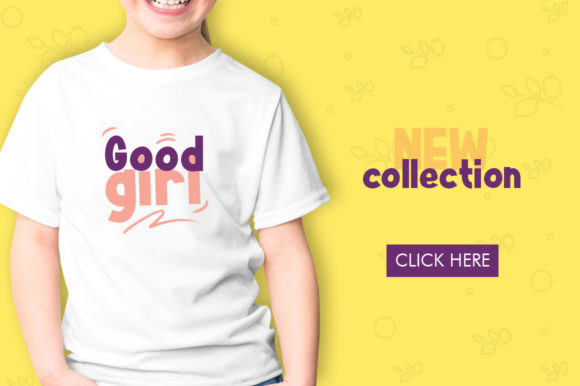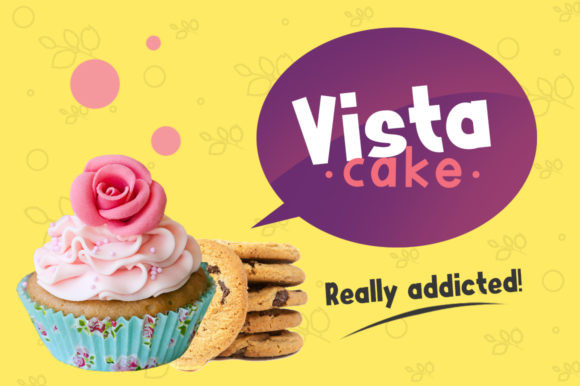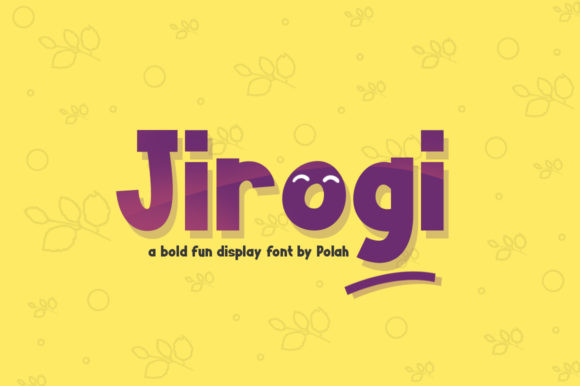
Jirogi Font
Jirogi is a fun and whimsical display font with an incredible charm. Get inspired by its youthful personality! It works perfectly with the Go Cloud font, which is also included in this package.